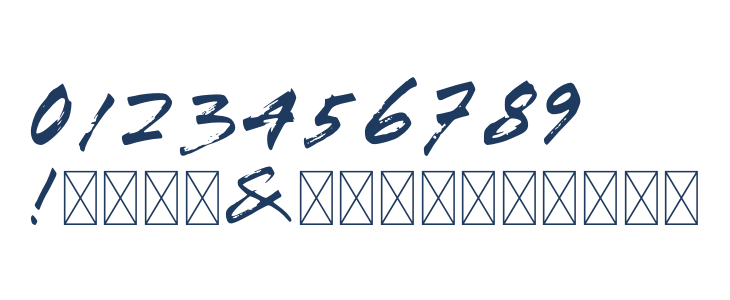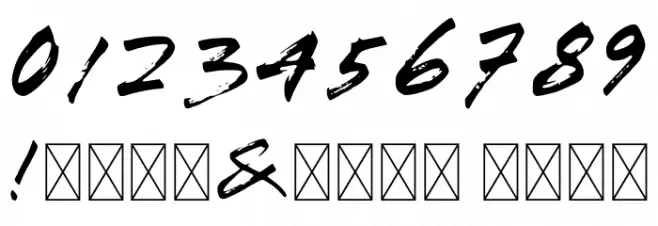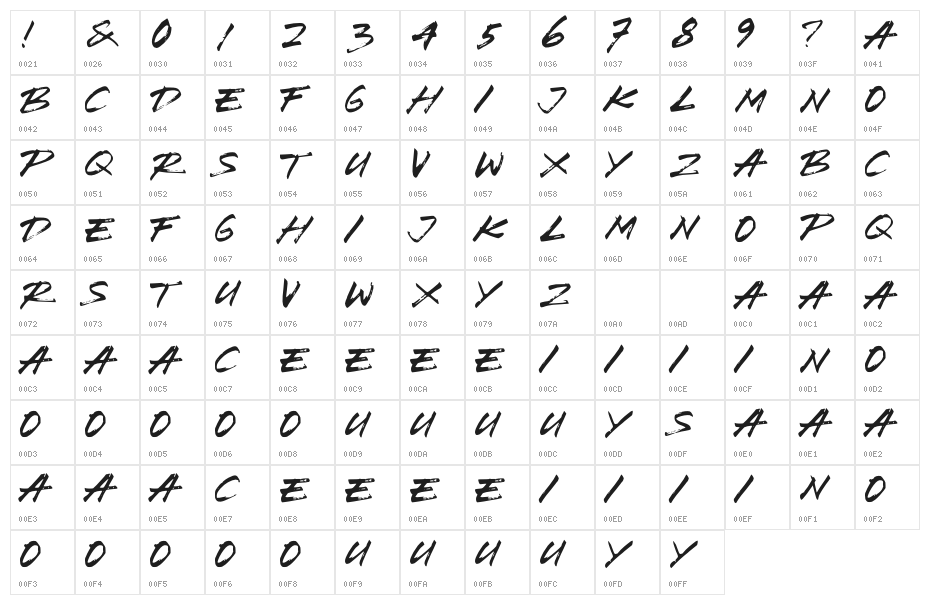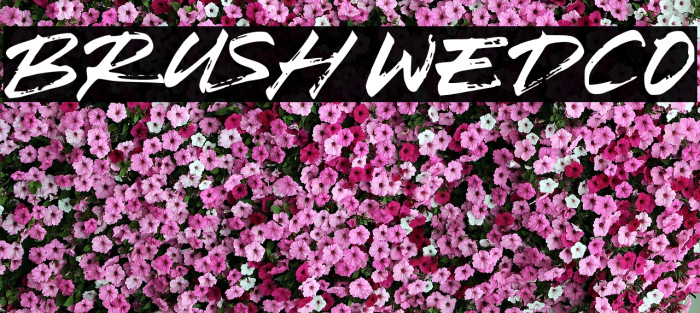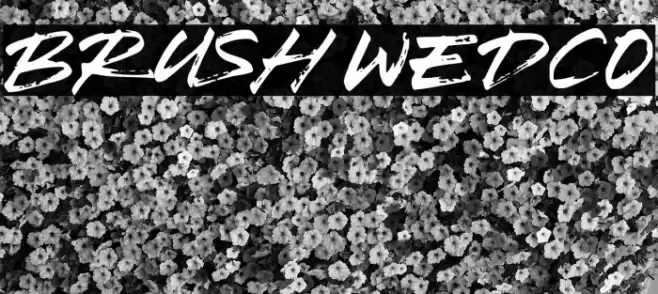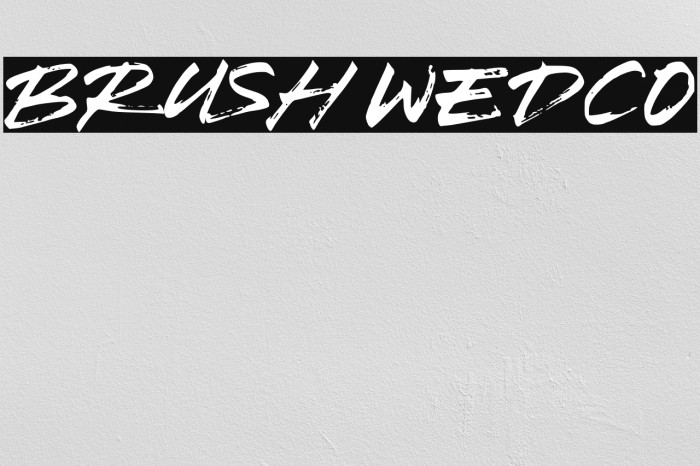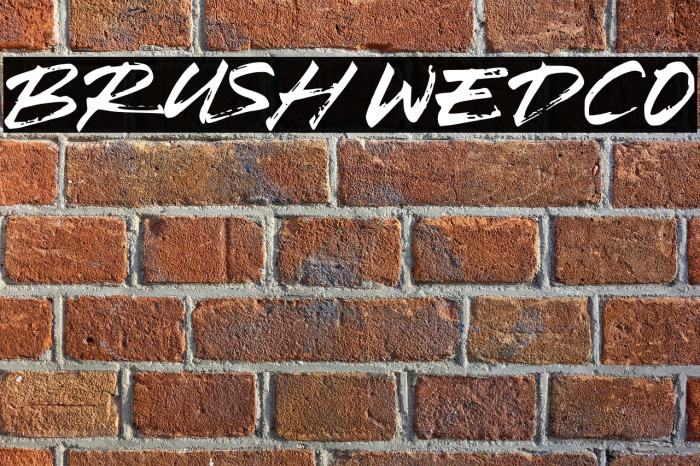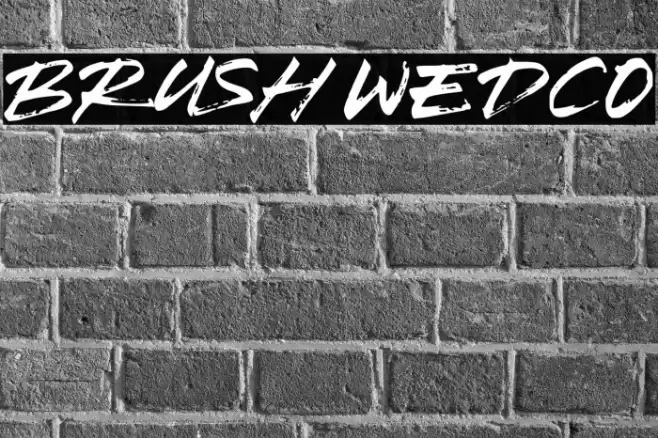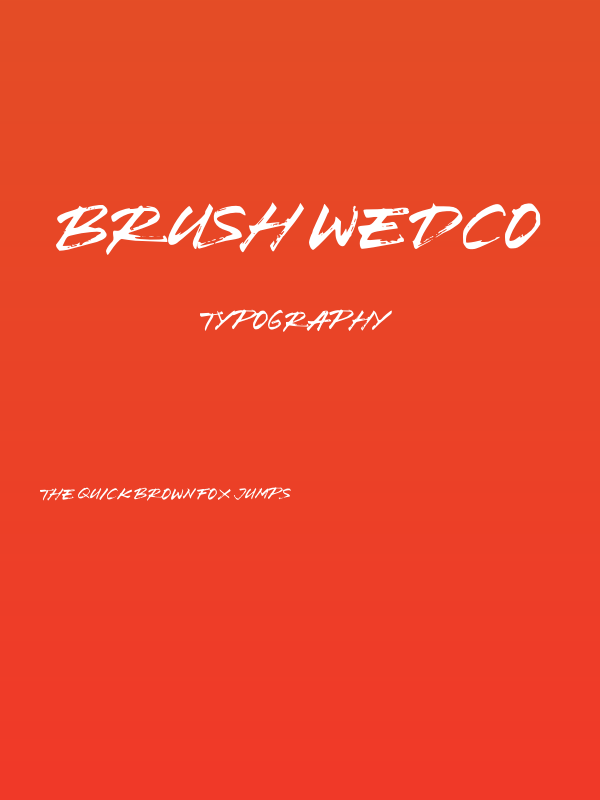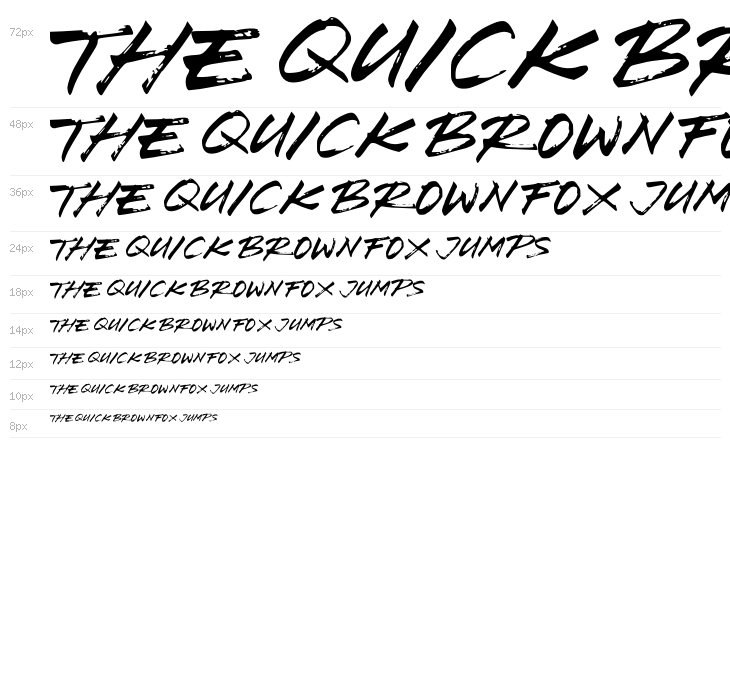
Brush Wedco Font
Brush Wedco Description
This font exudes a dynamic and energetic style, characterized by its brush-like strokes that give it a hand-painted appearance. The uppercase and lowercase letters maintain a consistent flow, with each character exhibiting unique, artistic flair. The numbers and special characters follow the same expressive style, making the font suitable for creative and bold designs. The strokes are uneven, adding to the font's organic and spontaneous feel. This typeface is perfect for projects that require a personal touch, such as invitations, posters, or branding materials that aim to convey creativity and individuality.
| Proposed Projects | Ideal for creative projects like posters, invitations, and branding that require a personal, artistic touch. |